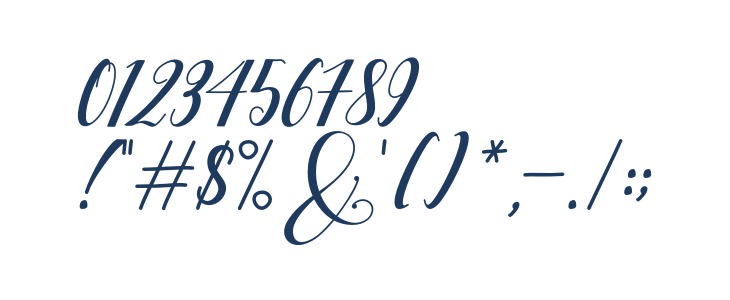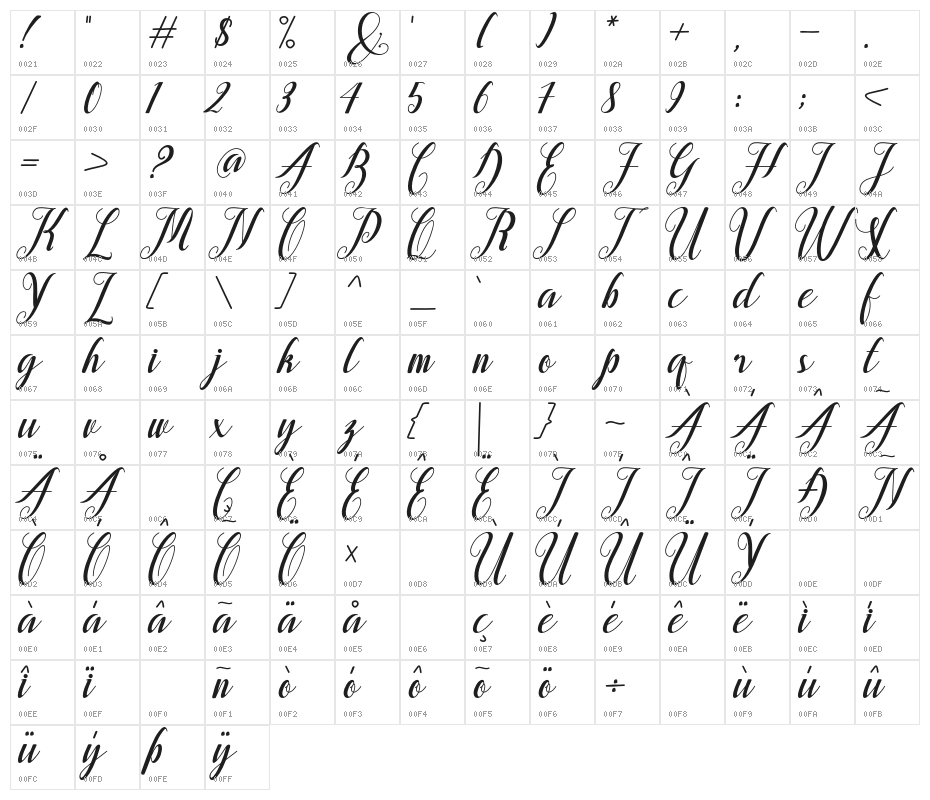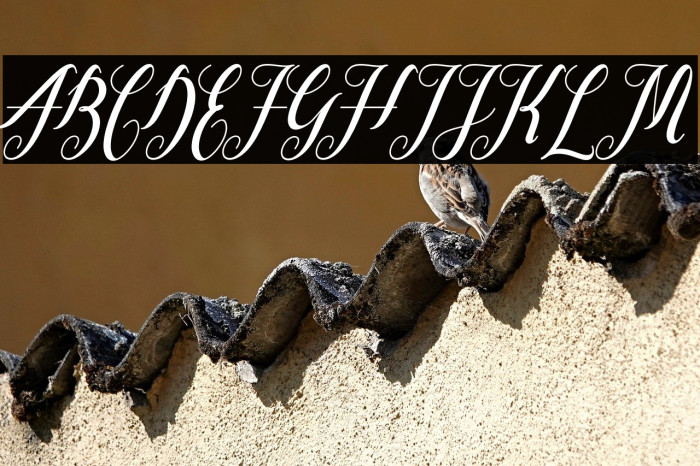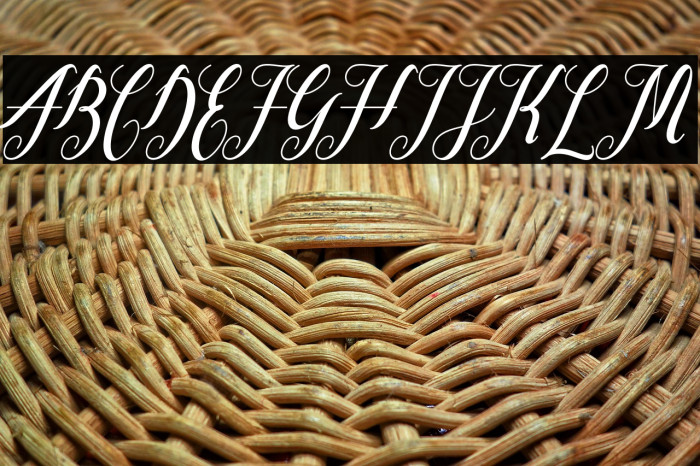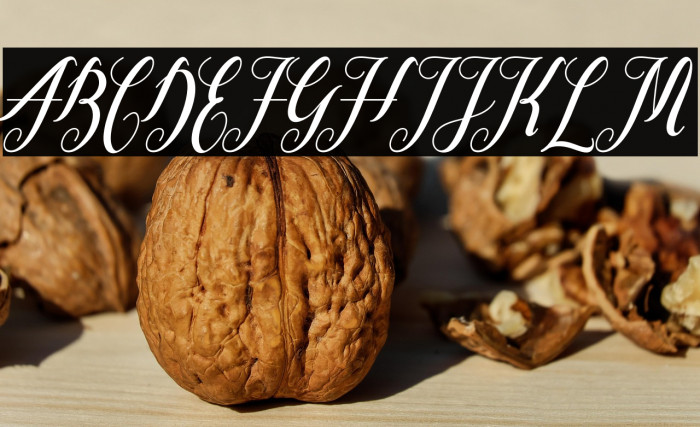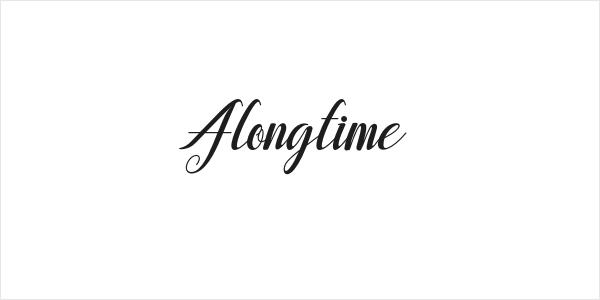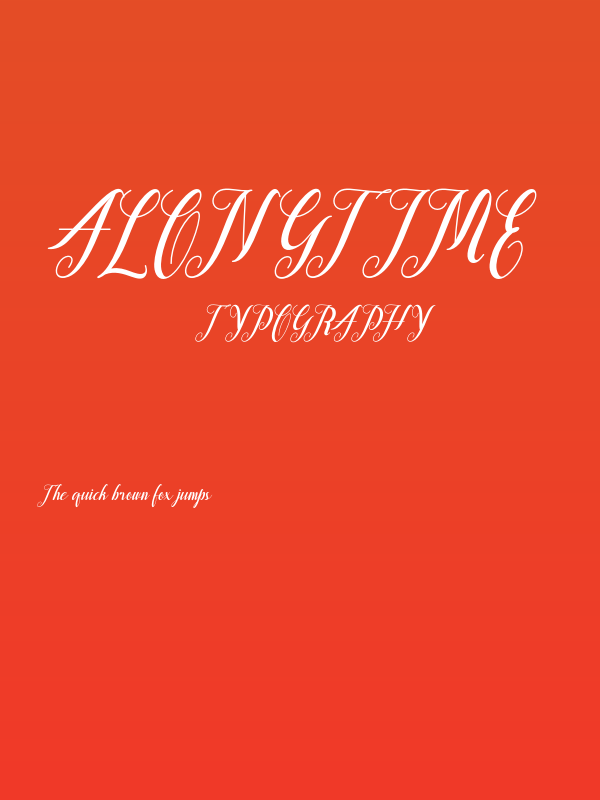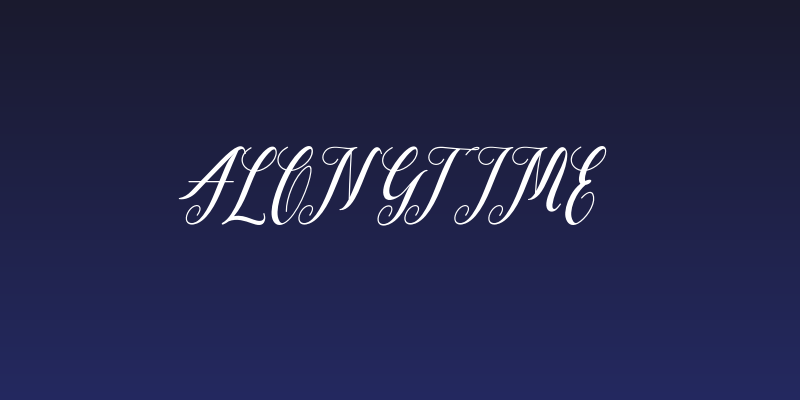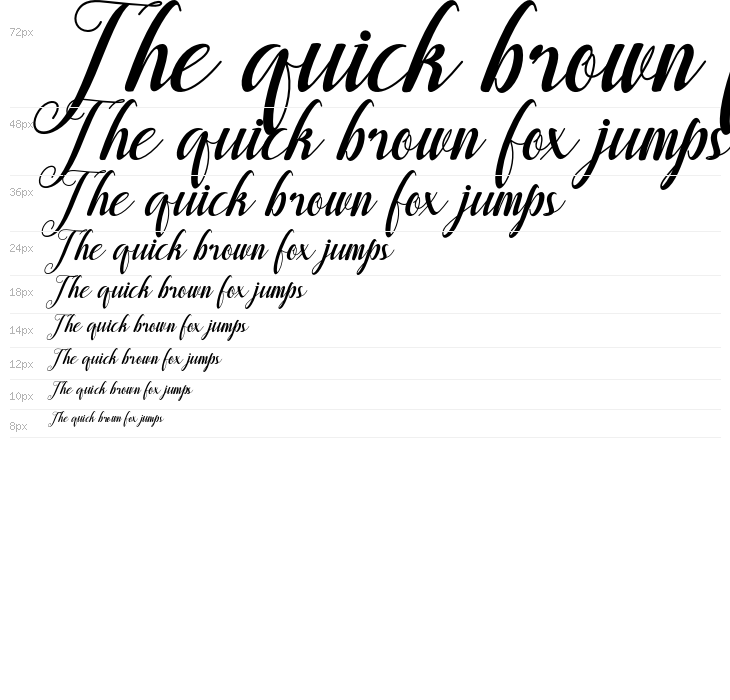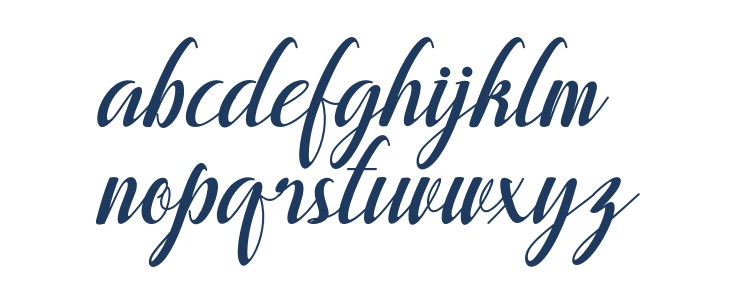
Alongtime Font
Alongtime Description
This elegant script font features flowing, cursive letters with a sophisticated flair. The uppercase characters are adorned with graceful loops and swirls, giving them a decorative and ornate appearance. The lowercase letters maintain a smooth and fluid style, enhancing readability while retaining an artistic touch. The numerals are consistent with the script style, offering a cohesive look across all characters. Special characters are designed with the same attention to detail, ensuring they blend seamlessly with the rest of the font. This font exudes a sense of elegance and refinement, making it ideal for formal and decorative applications.
| Overall Style | Elegant, Decorative |
| Use Case | Logos, Invitations, Decorative text |
| Proposed Projects | Ideal for wedding invitations, elegant branding, greeting cards, and decorative signage. |